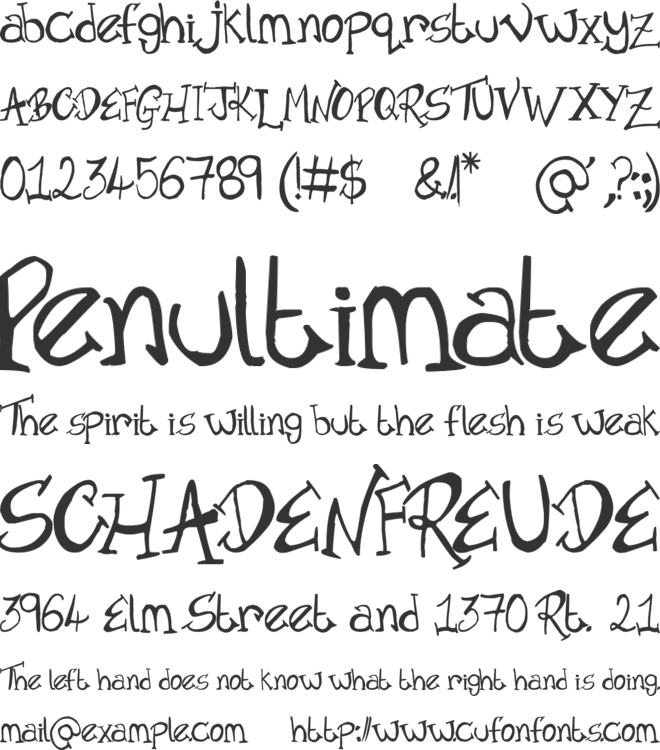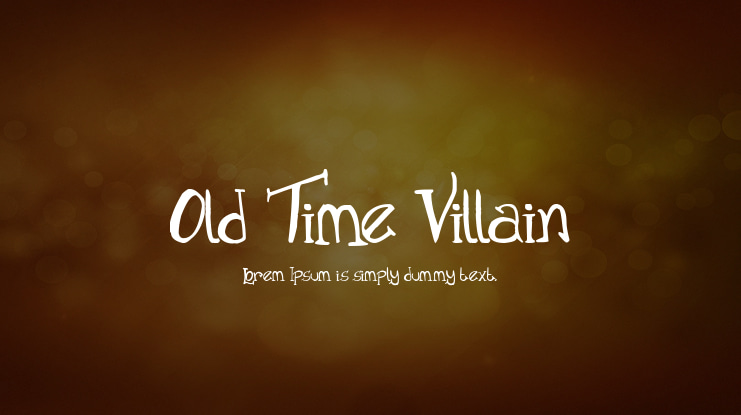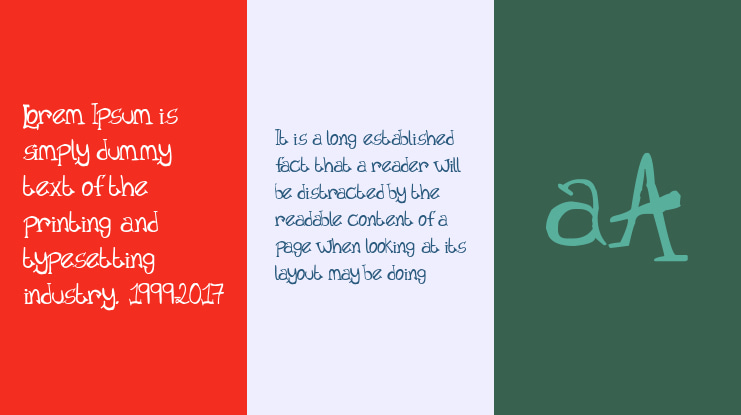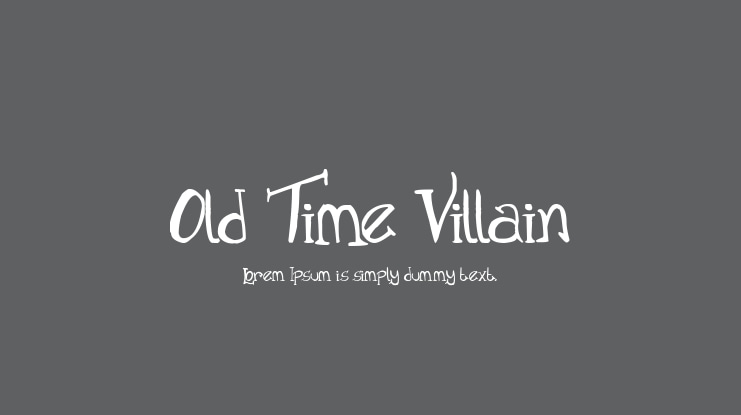
Old Time Villain Font
The font, Old Time Villain, is inspired by Victorian villainous writings. Its hand-written design and non-uniformed character sizes give it a historic feel as well as its flourishes. It's perfect for those looking to add an oldy-worldy feel to their work!